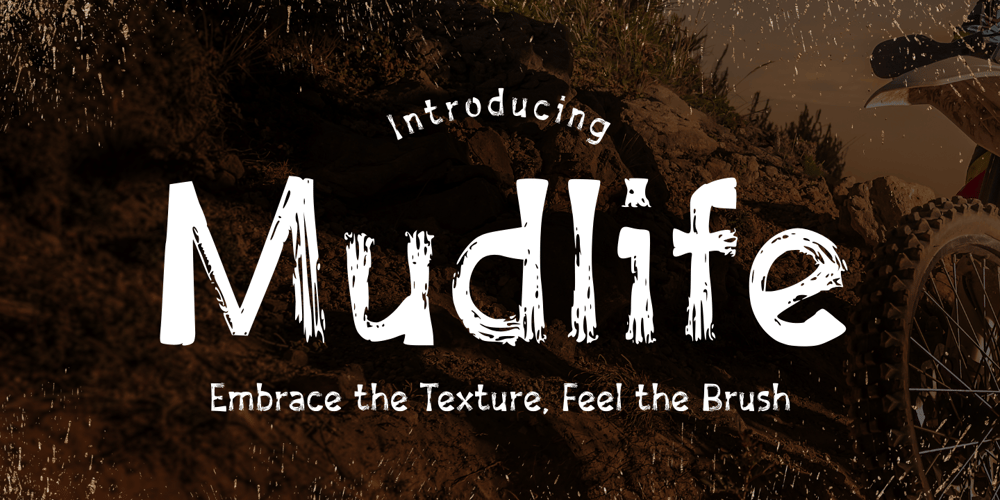
Mudlife
Mudlife font
Mudlife Font Family was designed by Muhamad Yusron Billah and published by Sronstudio. Mudlife contains 1 styles and family package options. Introducing “Mudlife,” your go-to font for adding a textured, brushed vibe to your designs! With its rough edges and bold strokes, this font brings a touch of artistic flair to any project. Perfect for posters, quotes, or anything that needs that extra bit of personality. “Mudlife” adds depth and character to your text, making it stand out with a friendly and inviting feel.Features:- Uppercase & Lowercase- Numeral & Punctuation- PUA Encoded- Multilingual support- Simple Installation- Work both on Mac and WindowsThank you very much 🙂